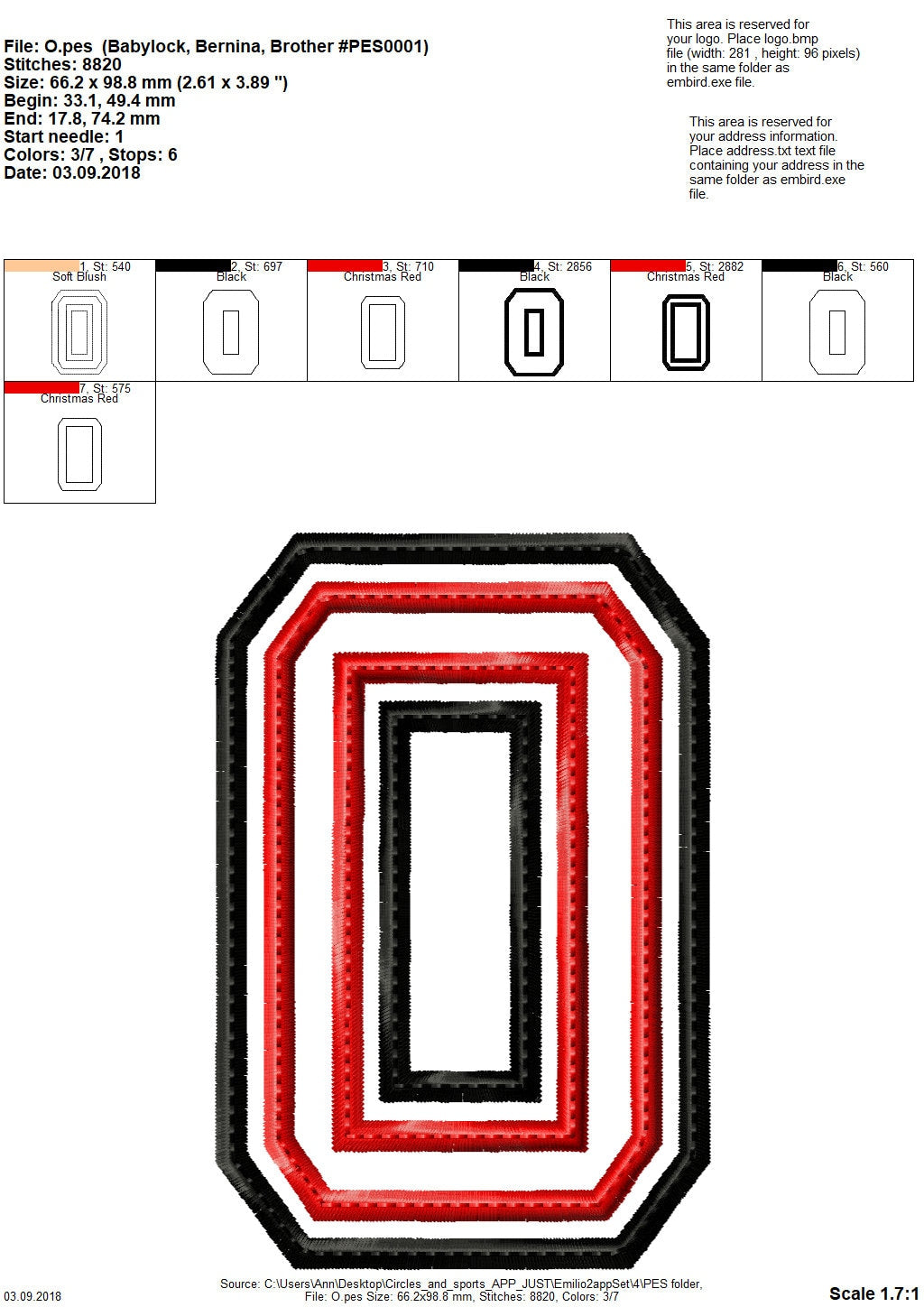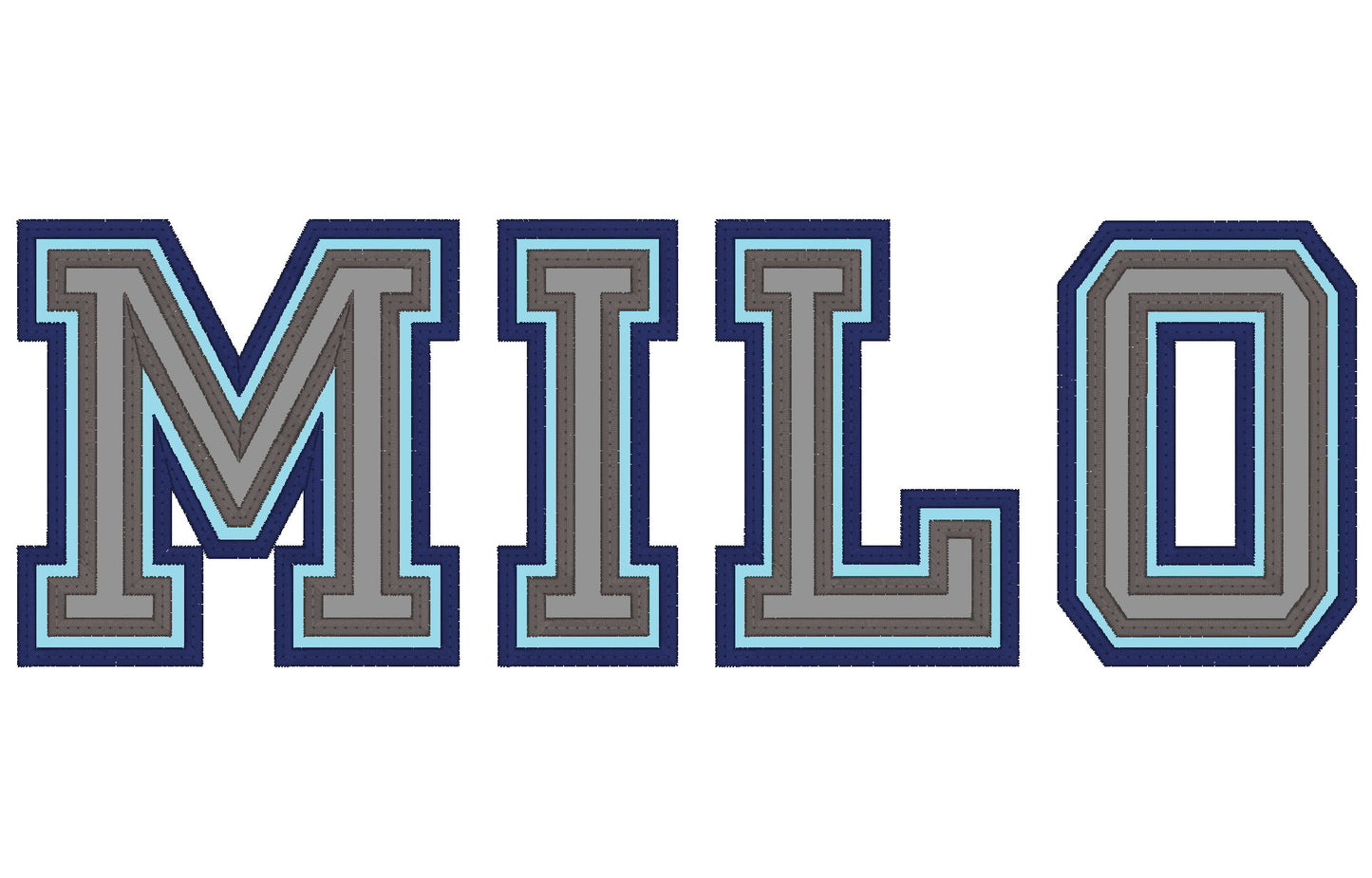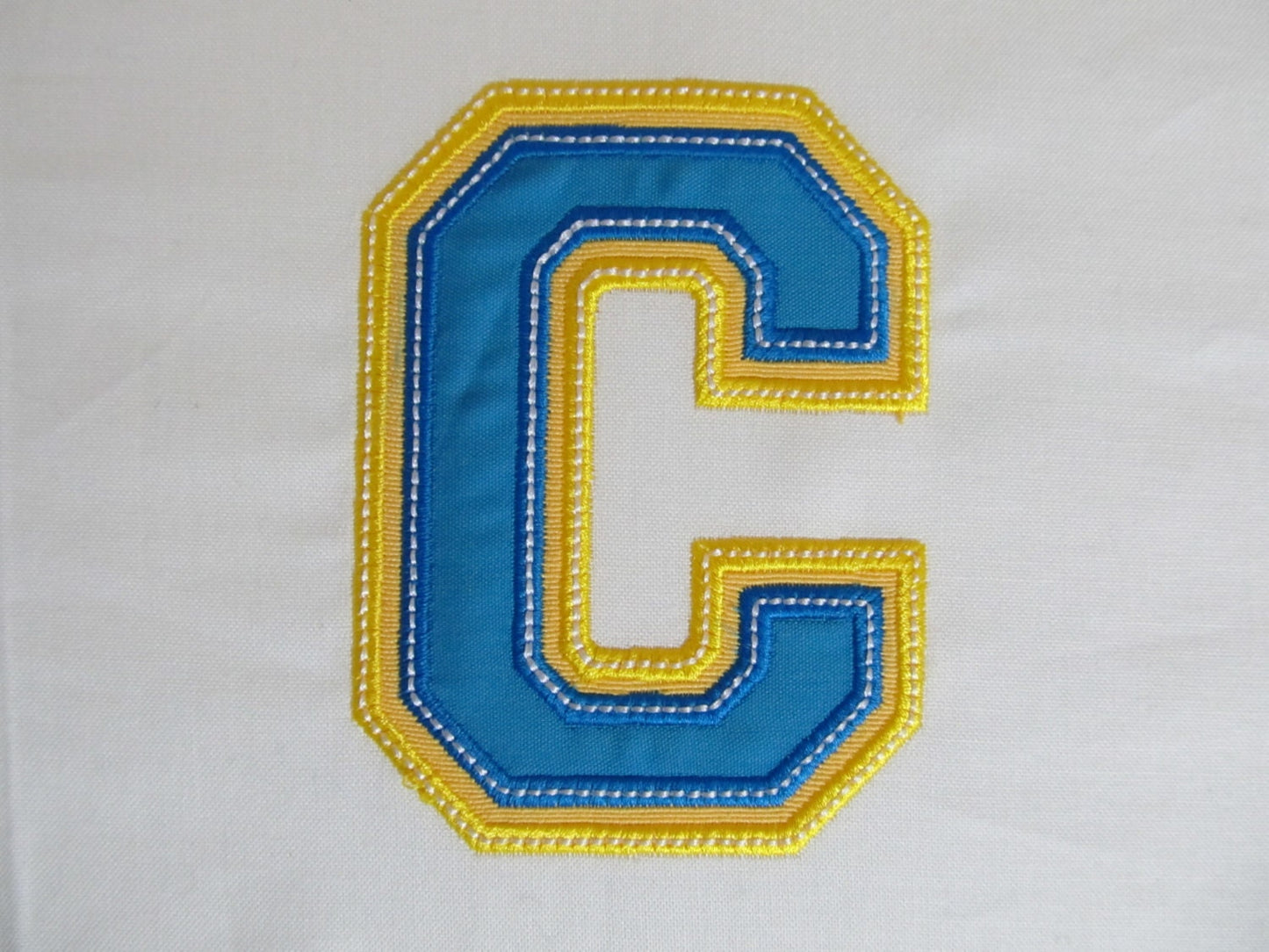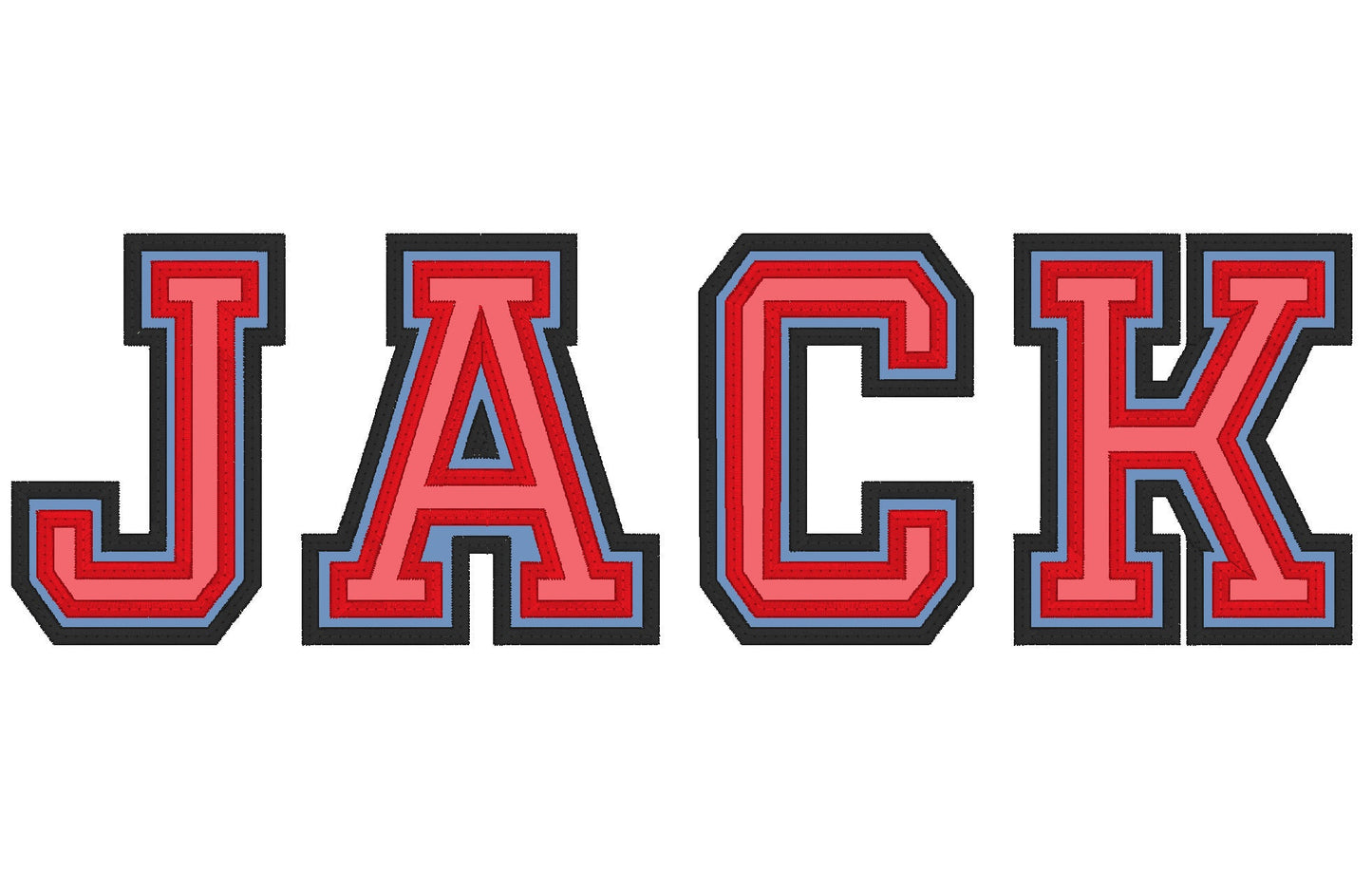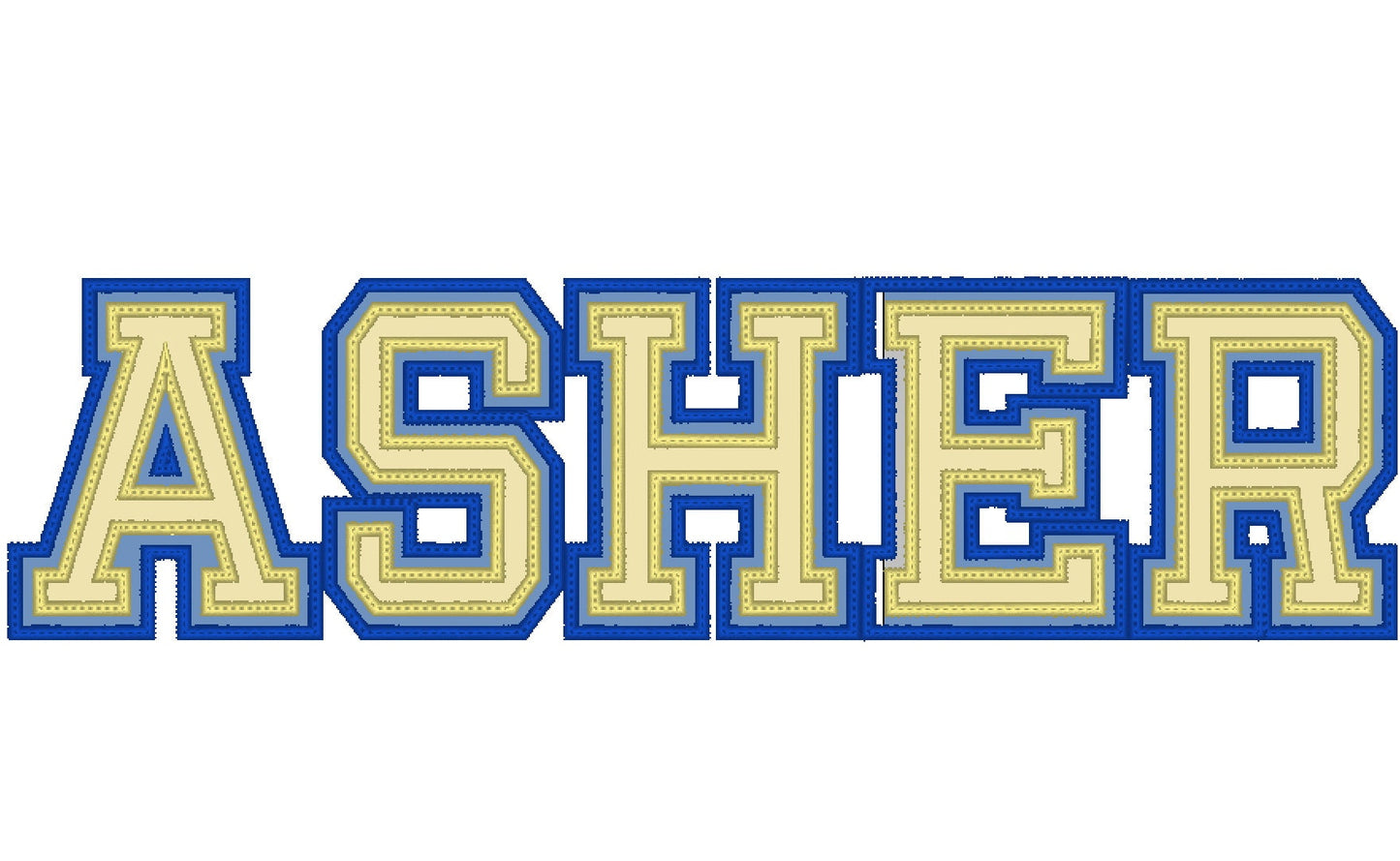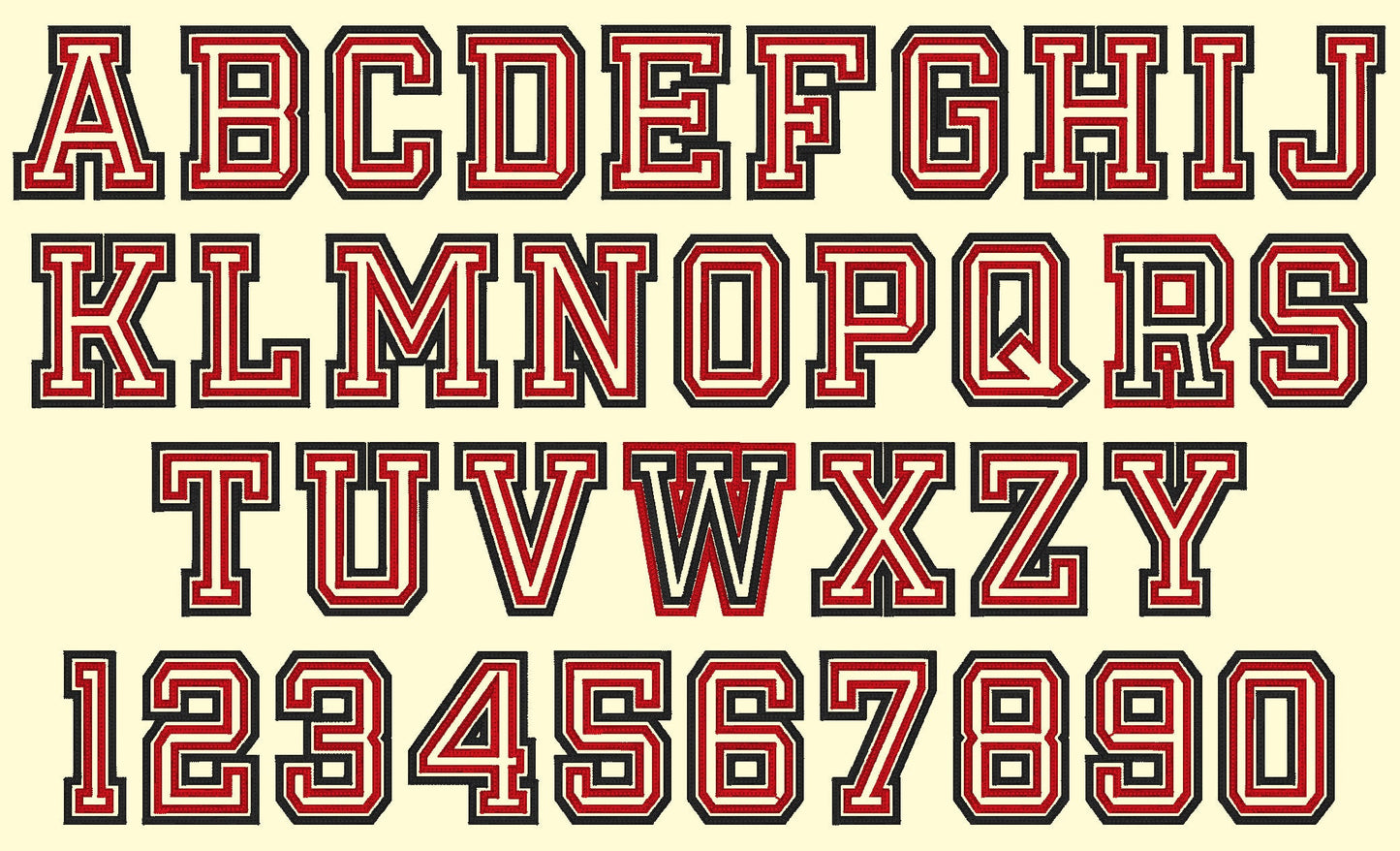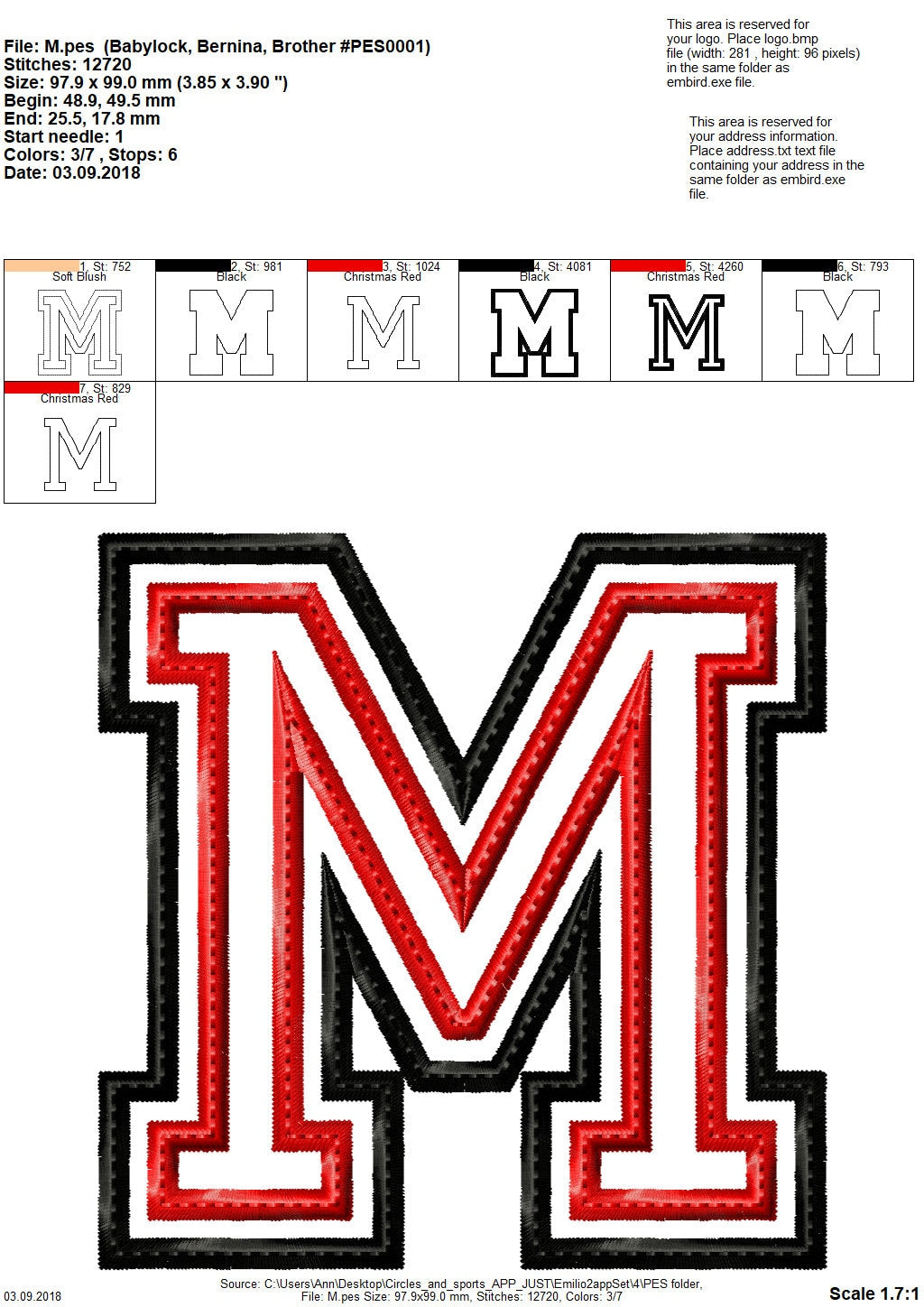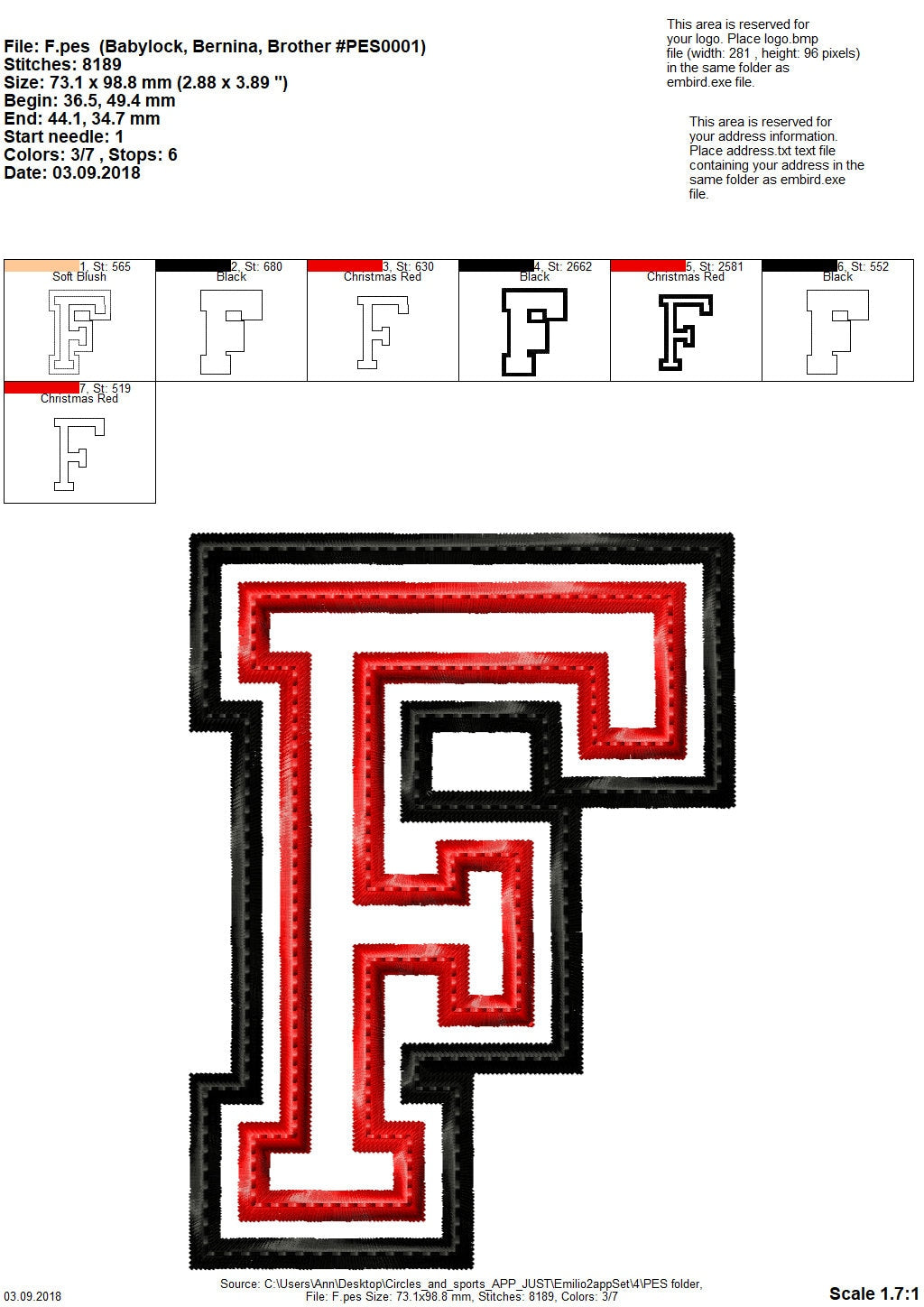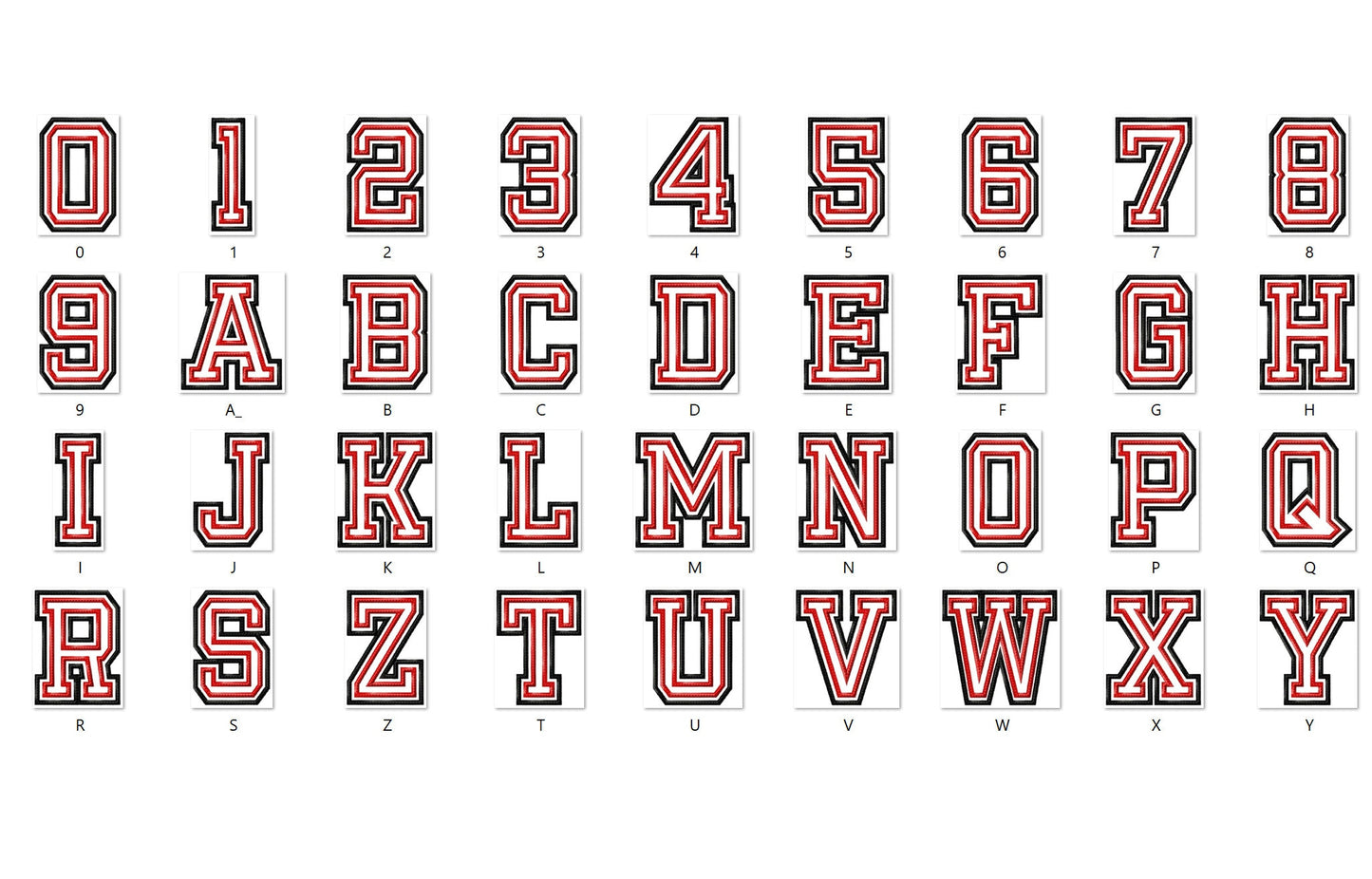
Or click to open the linkA double applique athletic block font with two layers and a double outline, for team names and numbers on jerseys, hoodies and bags.
A wide satin edge with a triple stitch on top keeps it neat and secure in the wash; the triple stitch can be skipped. Letters and numbers in eight sizes: 2.5, 3, 3.5, 4, 4.5, 5, 5.5 and 6 inches.